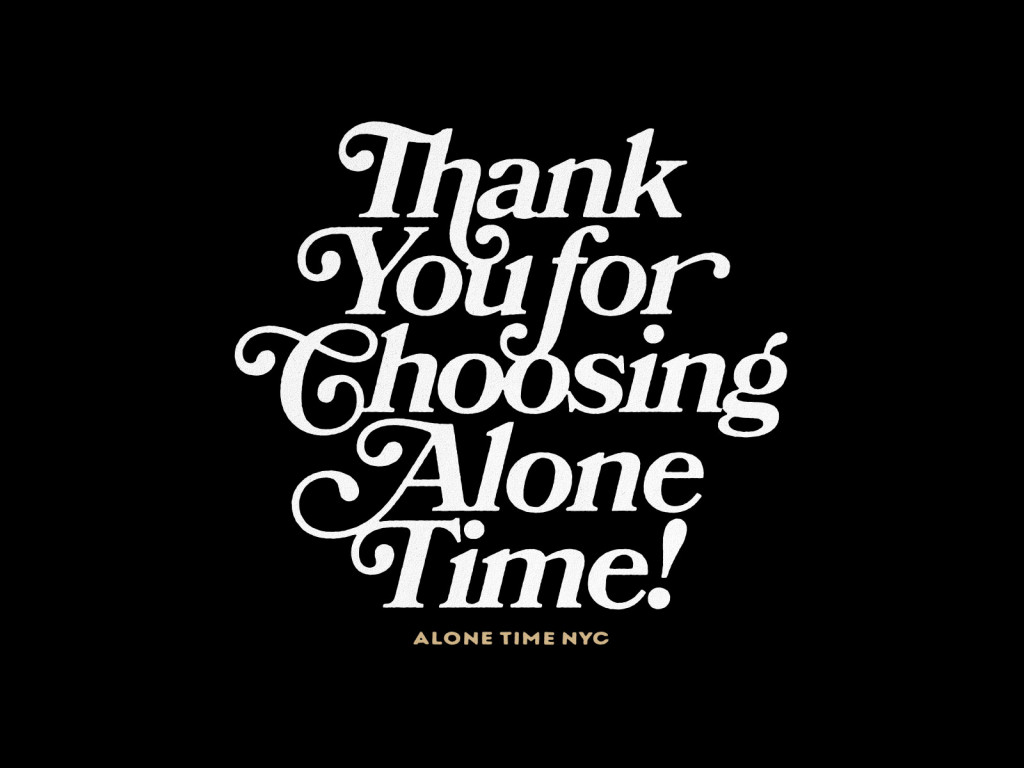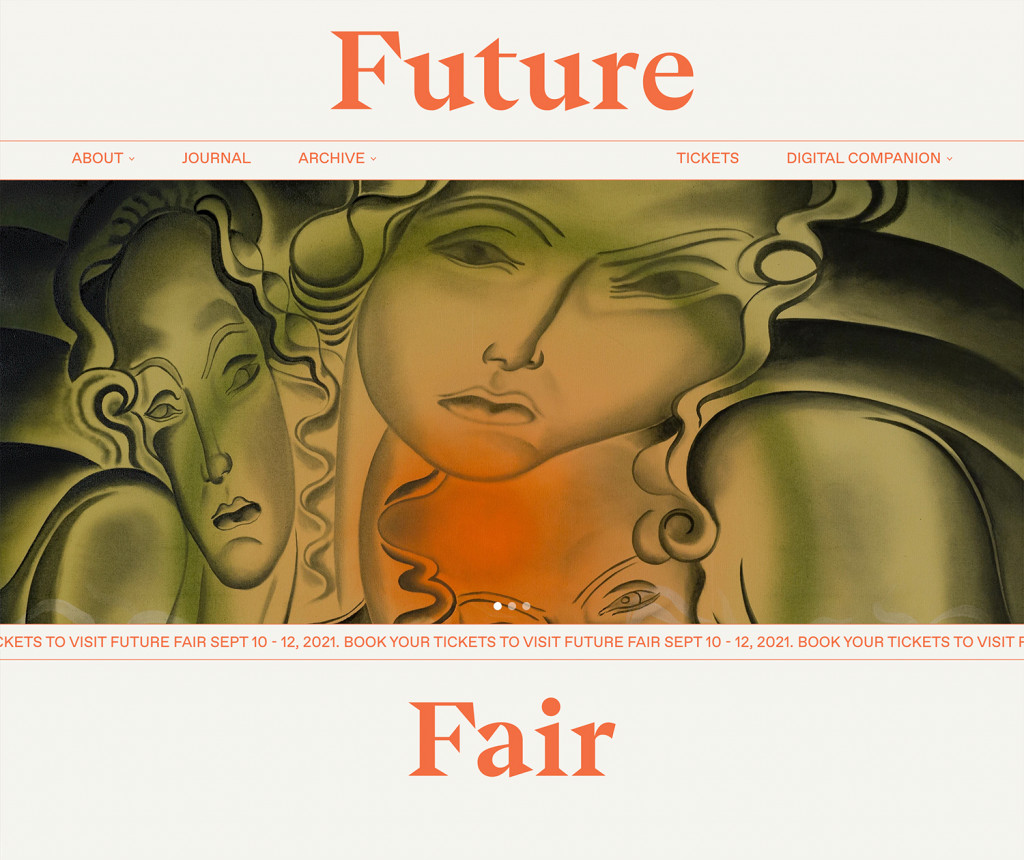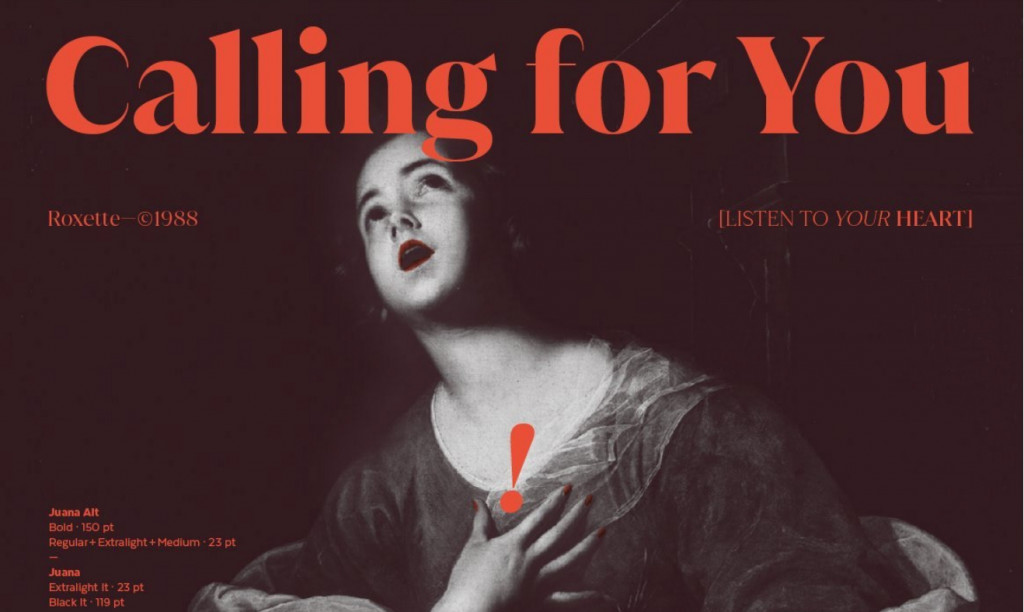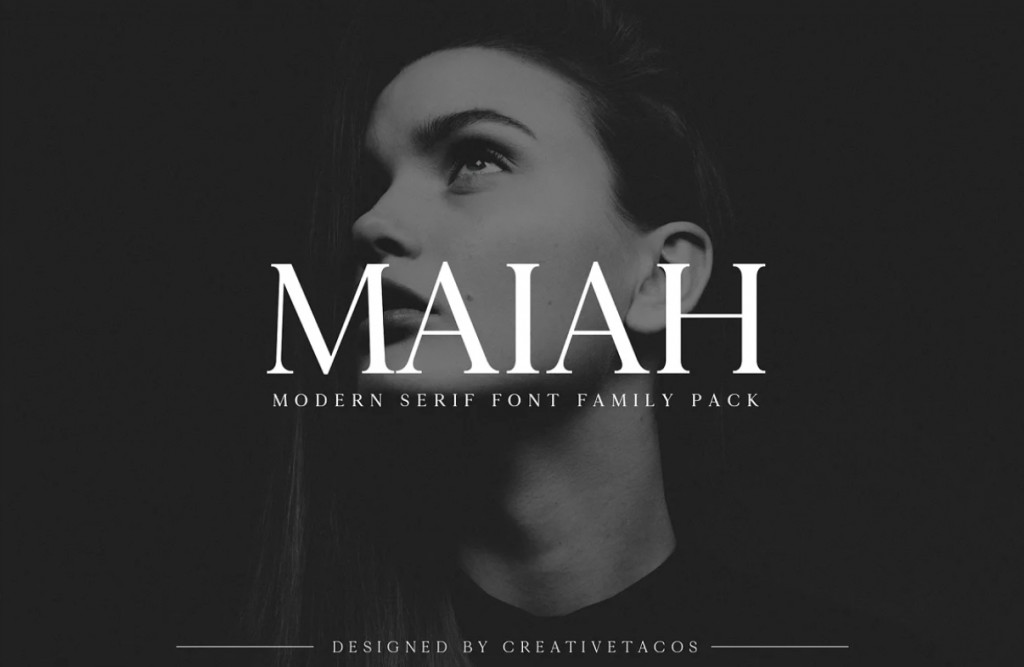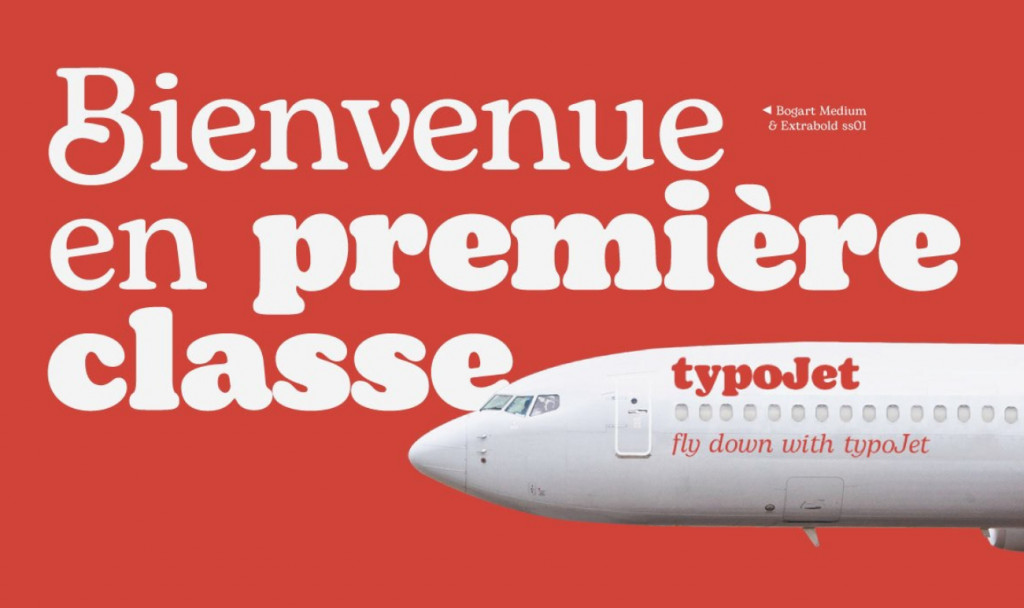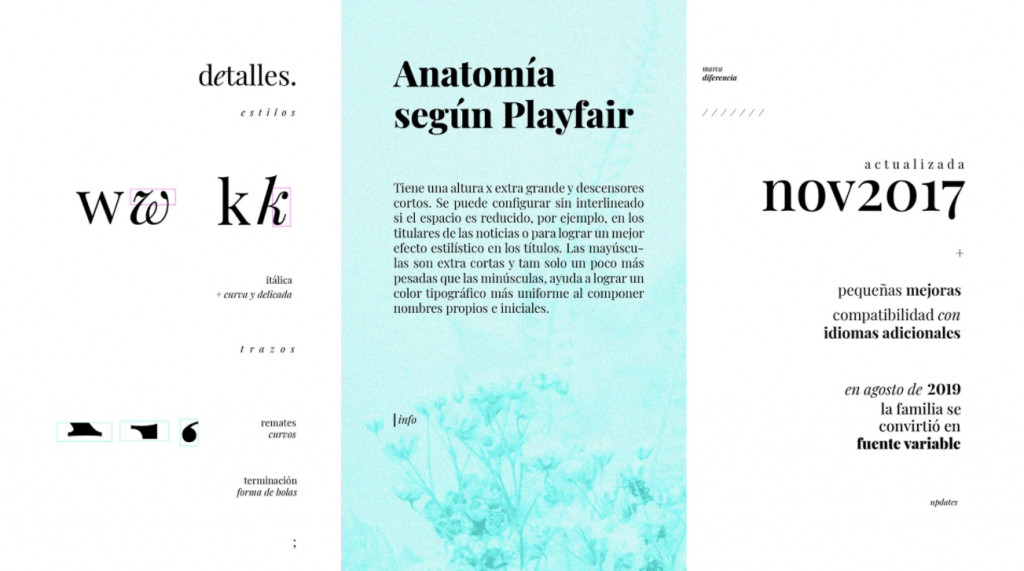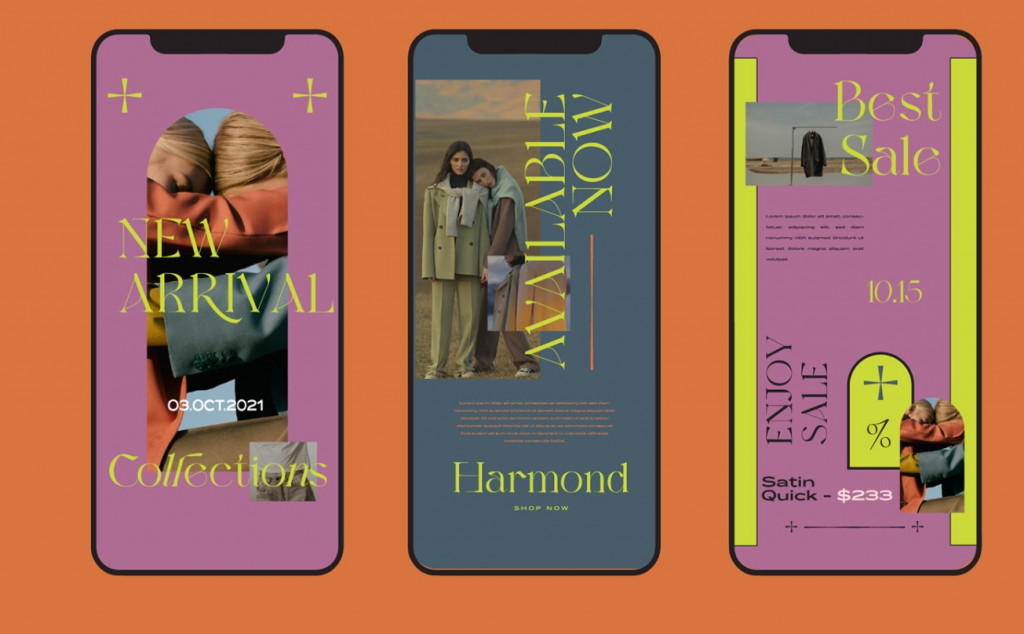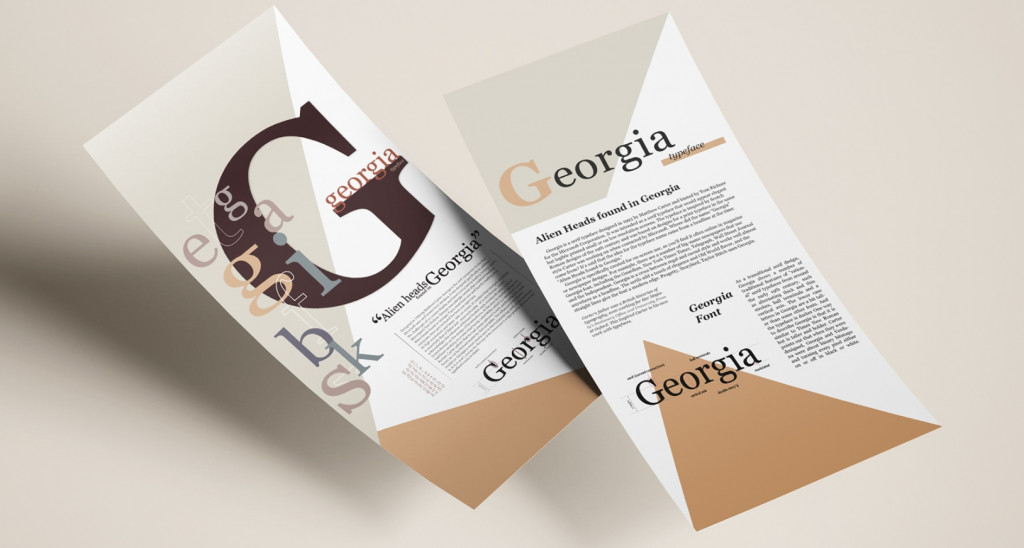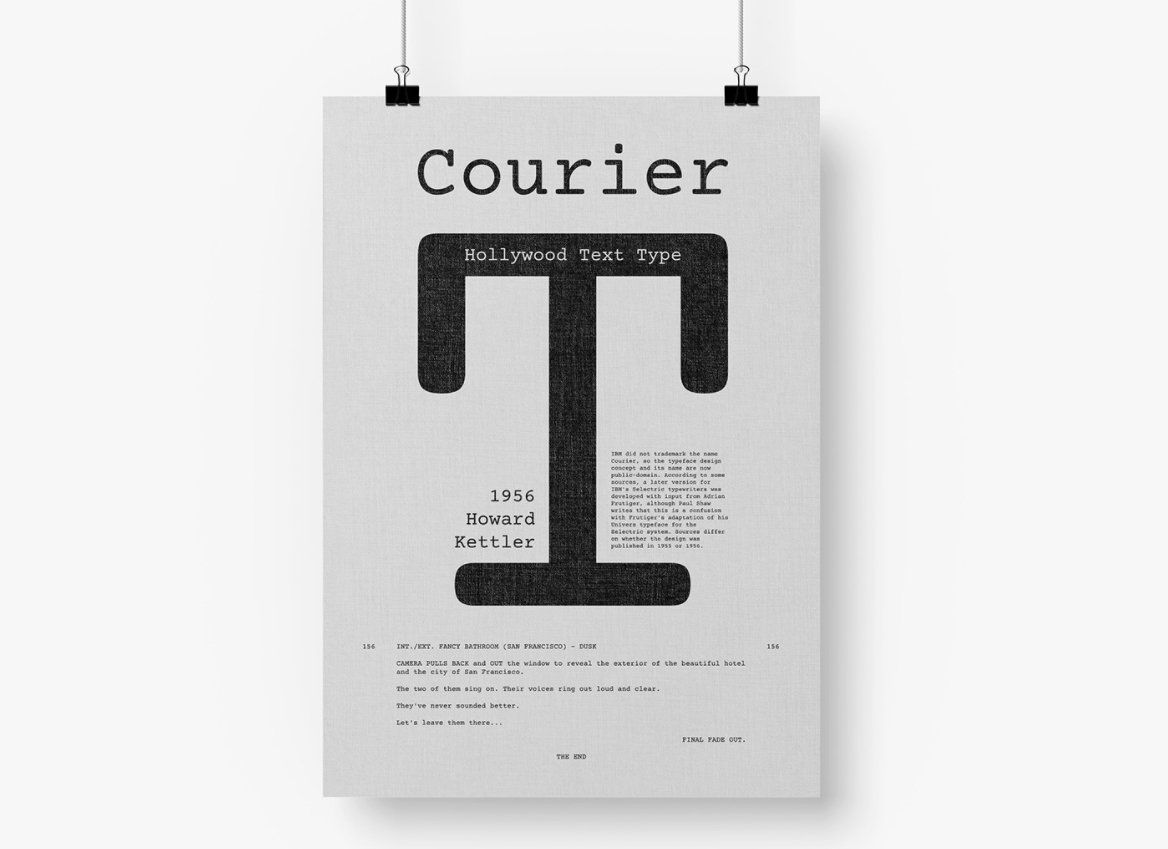
25 Best Serif Fonts For Websites: A Complete Guide
25 Most Popular Serif Fonts for Your Website
Talking about branding, style, and sophisticated design in website development, we often focus on graphics, animations, and interface intuitiveness. But what about typography? Selecting the best serif fonts for websites can significantly impact how visitors perceive your site’s identity, message, and branding.
The website’s typography reflects your brand’s image and should harmonize with the whole interface environment. This role may not seem so noticeable against other web design elements. But if the font is chosen incorrectly, you will immediately see the difference. So to ensure the chosen font delivers the right message, look for a perfect fit.
This post will focus on the Serif fonts’ family to introduce the best options among hundreds of existing ones. Dive in to get familiar with these finest Serif fonts that can make your website balanced, solid, and user-friendly.
What are the best serif fonts for websites?
Before we get to the main point, let’s clarify where serif fonts for websites got their name from. Such fonts contain small extensions at the ends of a letter’s vertical and horizontal strokes — serifs. Sometimes people call them “little feet” or “hooks.” Serifs first appeared in ancient Roman square capitals and became quite popular with the printing press discovery.
Nowadays, you can often notice serif fonts in books, newspapers, or magazines. However, a lot of popular serif fonts also happen to work great for digital products or websites, logos, posters, etc.
There are plenty of best serif fonts for web that you can use for different purposes. The list of classic serif fonts includes Times New Roman, Riven, and Bergamo. Nonetheless, there are a lot of others you may be unfamiliar with. In this article, we’ll cover the best serif fonts for body text and tell you more about how you can use them in your products.
What’s the difference between serif and sans serif fonts?
Sans Serif fonts have letters with clean lines. Well-known examples of Sans Serif typefaces are Arial, Helvetica, and Calibri.
The main difference between Serif and Sans Serif lies in the message they deliver to support your brand identity. There’s a common stereotype that some famous Serif fonts are old-fashioned while Sans Serifs represent more up-to-date content. However, both font families are actively used across the web.
Serif fonts’ design represents reliability, a serious approach, and a formal style of your website. They are respectful and resemble classical texts of books and printed publications. So serif fonts will be a great choice for more traditional business brands. They meet the style of the financial sector and large enterprises.
Some less formal businesses may also benefit from using Serif fonts in their websites’ designs. For instance, Serifs are becoming a fresh trend on e-commerce platforms.
The difference between Serif and Sans Serif fonts
Sans Serif font design conveys simplicity and minimalism. It’s better applicable to younger audiences and is associated with innovative approaches. That’s why IT companies, startups, and creative design studios often use Sans serifs.
Serif fonts: when and where is it best to use them?
The best serif fonts for websites, including the Serif font family, occupy a special place in web typography. Your brand can make a solid and formal impression with serif fonts that are readable, straightforward, and non-distractive. Not surprisingly, they are default in many text editors, including Microsoft Office and Apple’s Text Edit. Furthermore, Serif fonts are the traditional choice of world-famous newspapers and magazines such as The New York Times, Boston Globe, etc.
Incorporating a serif font on your website evokes a sense of security, respect, and significance. Modern Serif fonts are also great choices for logotypes, business cards, and brochures. Before using one of these typefaces for your website, ensure it meets your company’s style and values. It’s critically important to hit the target and meet your audience’s expectations.
Tips for using serif fonts
To help you figure out the best ways of using a serif font for body text, we’ve gathered a list of top tips. Save it for your future projects!
• Choose serif fonts to make individual letters stand out. This way, you can make the text look more formal. Thus, you can emphasize your professionalism or help your brand associate with tradition or sophistication.